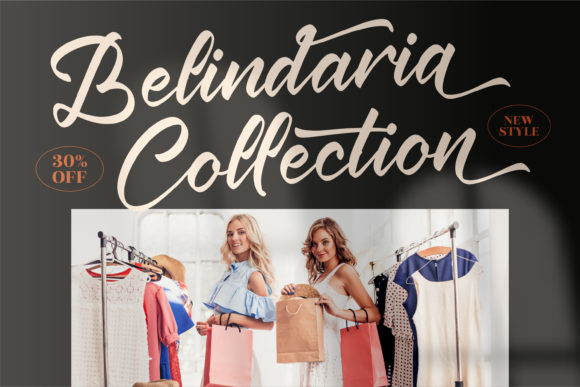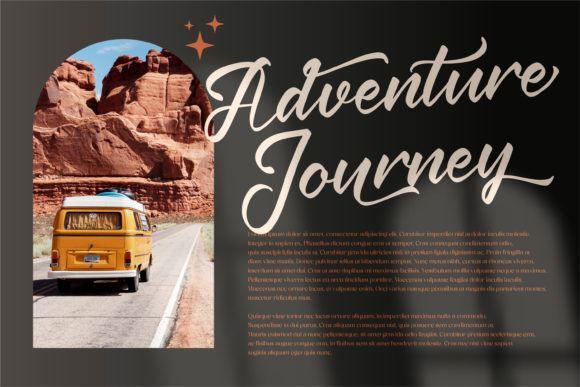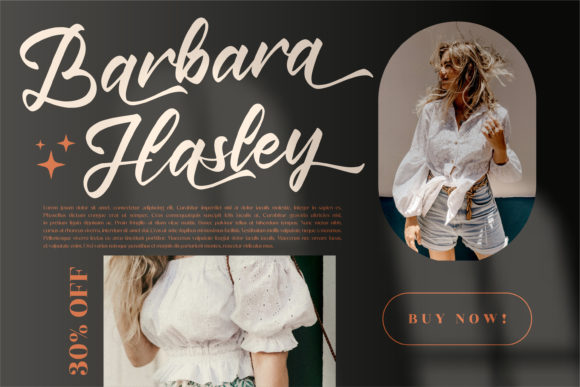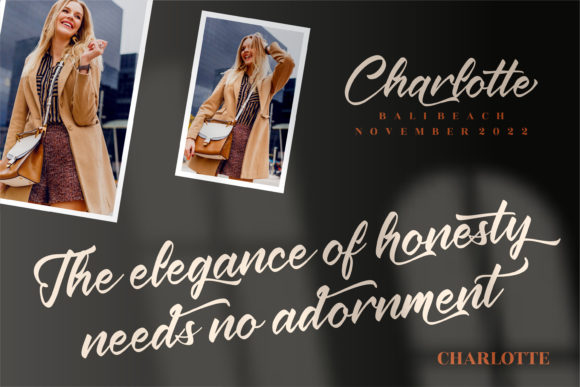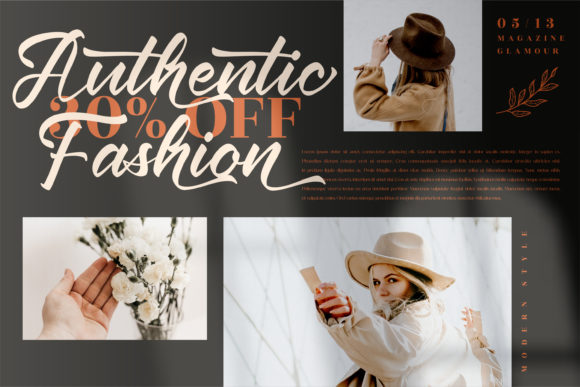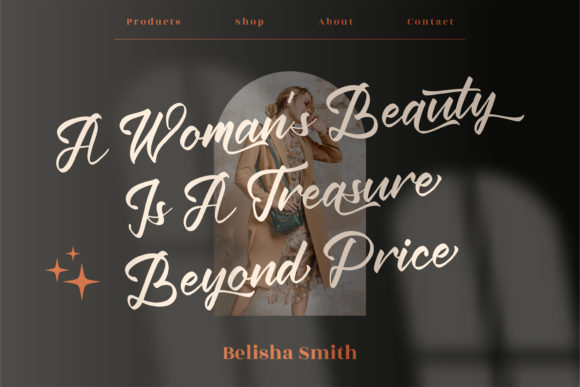
Introduction to Krakatau Mountain Font
As a designer, have you ever found yourself stuck on a creative project, desperately searching for the perfect font to bring your vision to life? I know I have. It’s that moment when the entire design starts to feel cohesive, and the right font is the missing piece of the puzzle. For me, that moment came when I stumbled upon the Krakatau Mountain Font.
| 👤 Author | Perspectype |
This exquisite handwritten font is a true gem, masterfully designed to become a favorite among designers. With its classy calligraphic influences and contemporary feel, it’s the perfect addition to any project. Whether you’re working on a branding campaign, a blog post, or a social media graphic, Krakatau Mountain Font is sure to elevate your design game.
Not only is this font a valuable design resource, but it’s also PUA encoded, making it easy to access all of the glyphs and swashes. With a transparent background and high-quality design, you can be sure that your creative project will stand out from the crowd. And the best part? You can download it for free, making it an accessible design tool for designers of all levels.
Key Features of Krakatau Mountain Font
- Unique, high-quality font designed for creative projects, offering a distinctive look.
- Designed to be versatile, suitable for a variety of creative projects, from logos to typography-based art.
Honest Review: Krakatau Mountain Font
I recently stumbled upon the Krakatau Mountain Font and decided to give it a try for my next creative project. As a designer, I’m always on the lookout for high-quality design resources that can elevate my work, and this font did not disappoint.
- Unique and creative design that adds a touch of elegance to any project
- High-quality font that’s perfect for headings and titles
- Transparency is available for the background, allowing for seamless integration with any design
- Limited character set, which may not be suitable for extended text blocks
- No bold or italic variations available, which can be a limitation for certain design applications
Overall, I’m impressed with the Krakatau Mountain Font and would definitely recommend it for designers looking for a unique and high-quality font for their creative projects. While it may have some limitations, its strengths far outweigh its weaknesses, making it a valuable addition to any design resource library.
To get the most out of the Krakatau Mountain Font, use it in conjunction with a high-quality image or background to create a visually appealing design. Experiment with different font sizes and styles to create a unique look.
The Krakatau Mountain Font is ideal for use in a variety of creative projects, including:
- Posters and signage